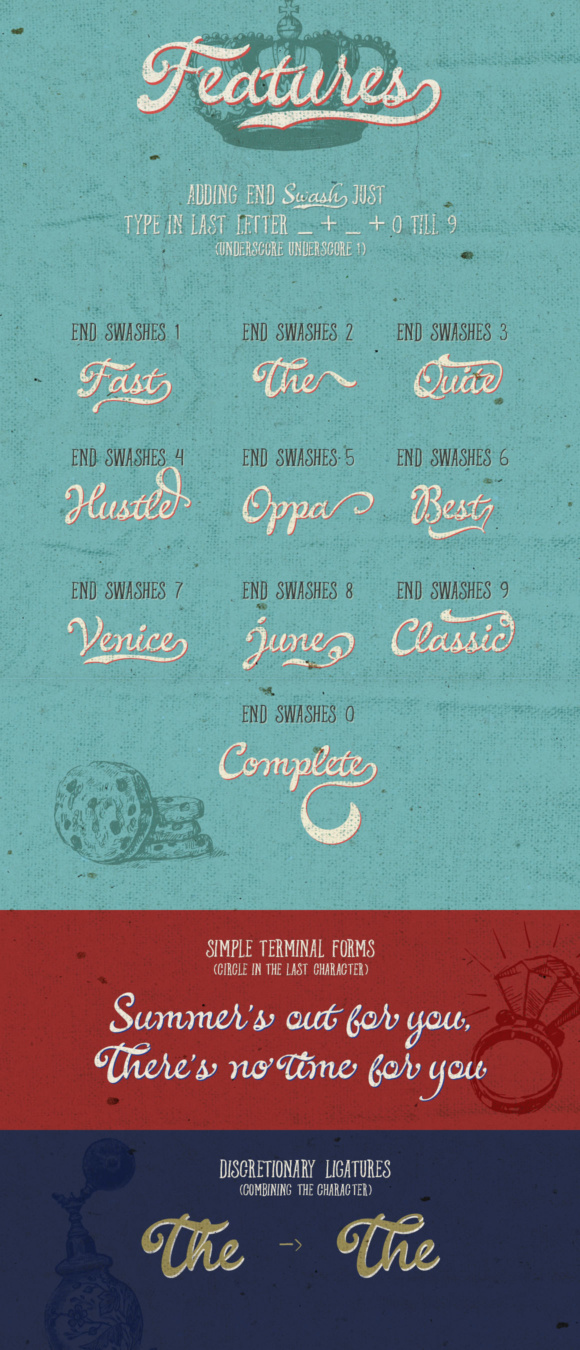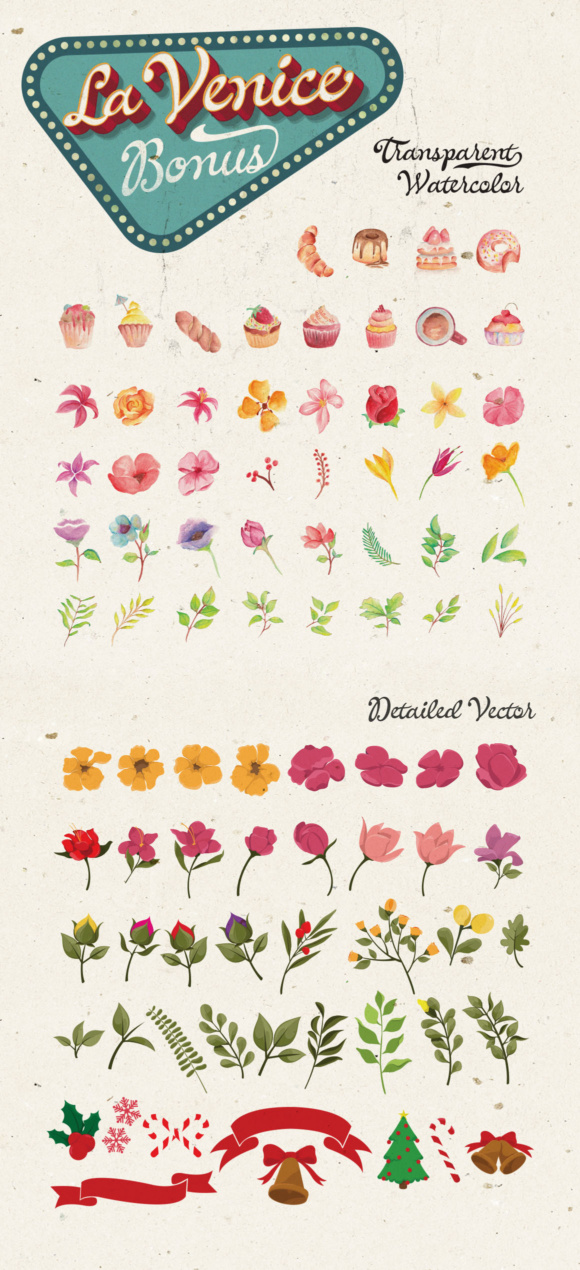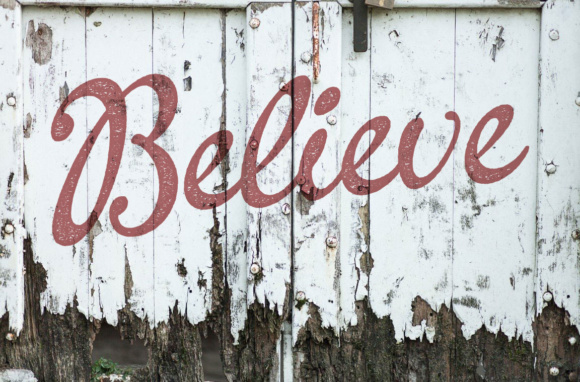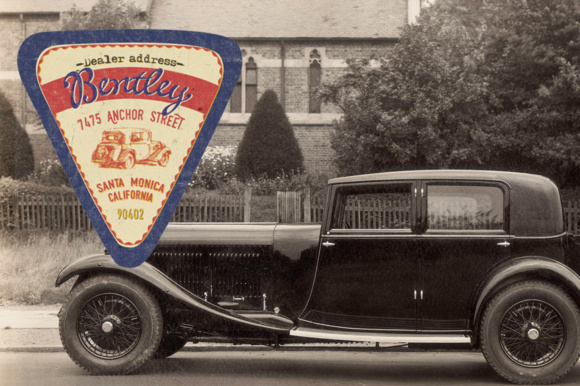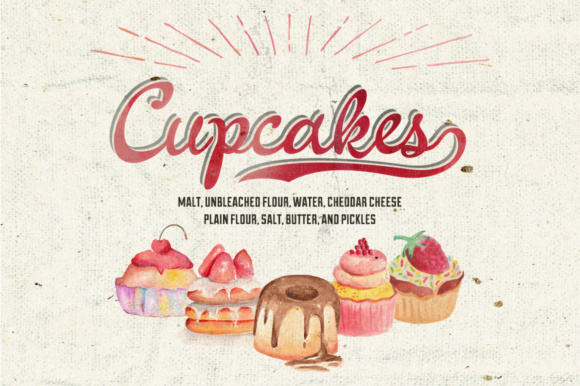
Introduction to La Venice Font
La Venice equal parts modern and vintage; this beautiful calligraphy script creates the impression of free form lettering, and is made to be a standout display.
This download also comes with bonus illustrations so you can make designs that are fully realized and stylish .
Key Features of La Venice Font